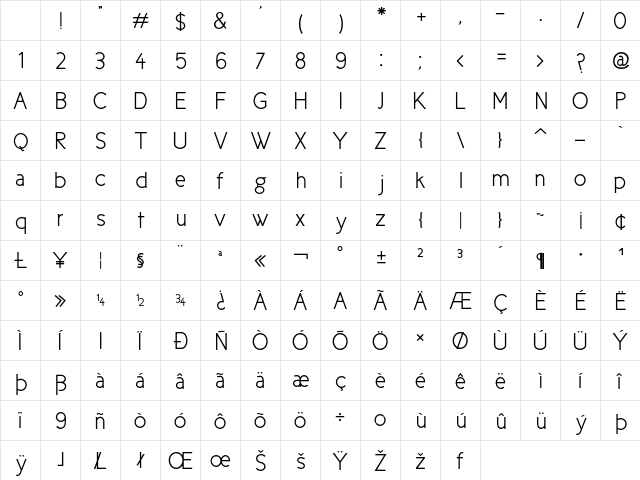
Complete Cicle Semi glyph index. Displaying only characters natively supported by Cicle Semi font.
Cicle is a composed and adaptable typeface that performs quietly and consistently across a wide range of design contexts.